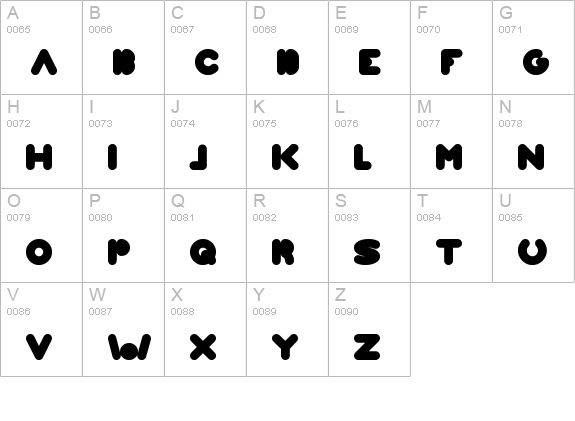
WEKNOW WORLD Font Details
Introducing the captivating and versatile WEKNOW WORLD font - a perfect choice for all your creative endeavors! This extraordinary typeface will effortlessly elevate your designs to new heights, making them stand out in the crowd. WEKNOW WORLD font boasts an impressive array of characters, each meticulously crafted to exude elegance and professionalism. Its modern and sleek design will instantly captivate your audience, leaving a lasting impression that is hard to forget. But what truly sets WEKNOW WORLD font apart is its accessibility - it is completely free! That's right, this incredible font is freely available to download at FontsMarket.com. No need to break the bank or compromise on quality - with WEKNOW WORLD font, you can have it all. Whether you're working on a logo, branding, website, or any other design project, WEKNOW WORLD font will effortlessly adapt to your needs. Its versatility allows for seamless integration into a wide range of creative projects, ensuring that your message is conveyed with utmost clarity and impact. So why wait? Explore the endless possibilities that WEKNOW WORLD font offers and unleash your creativity like never before. With its free availability at FontsMarket.com, you have the power to transform your designs into true masterpieces. Download WEKNOW WORLD font today and embark on a journey of limitless creativity!